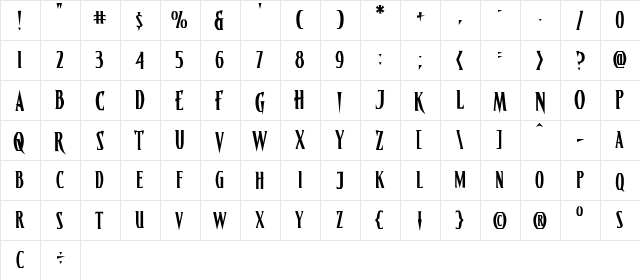
CCTreacherousCorners Regular
Design Context for CCTreacherousCorners Typeface
CCTreacherousCorners is a composed and adaptable typeface that performs quietly and consistently across a wide range of design contexts.